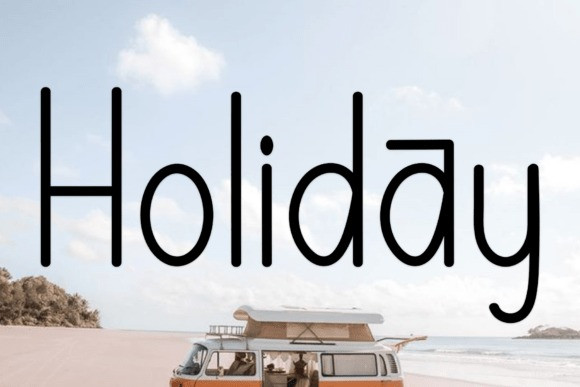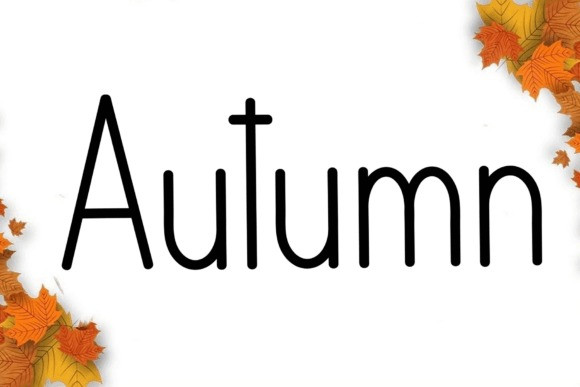
Family History Handwriting Font
Family History Handwriting Font is a clean and contemporary sans serif font with rounded edges and tall, soft forms that evoke warmth, connection, and modern simplicity. Ideal for family-themed projects, lifestyle branding, editorial layouts, and minimalist logos, it strikes a balance between friendly and professional with effortless charm.